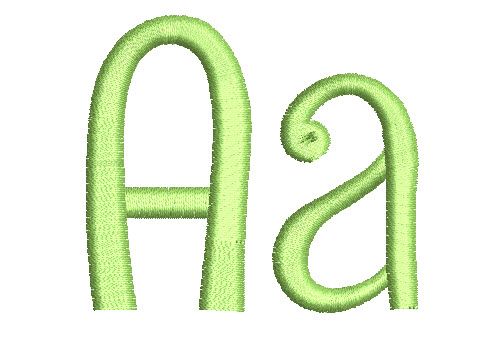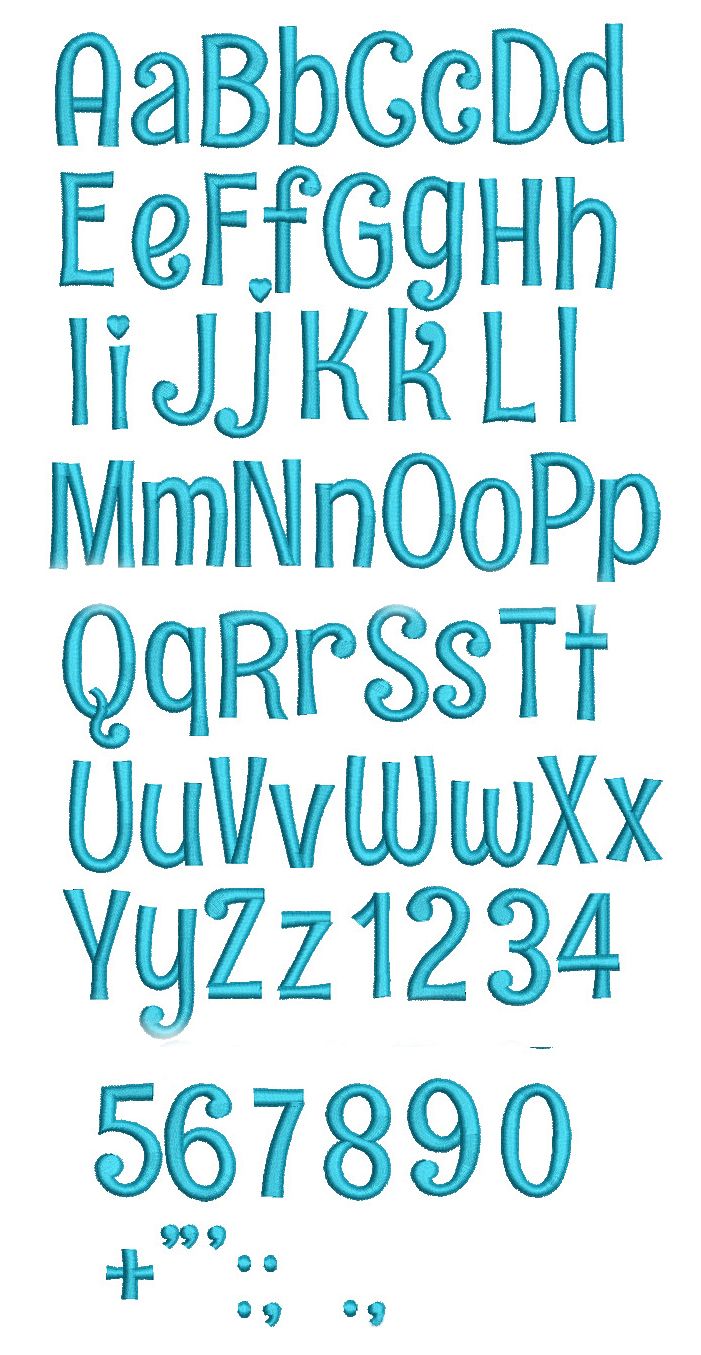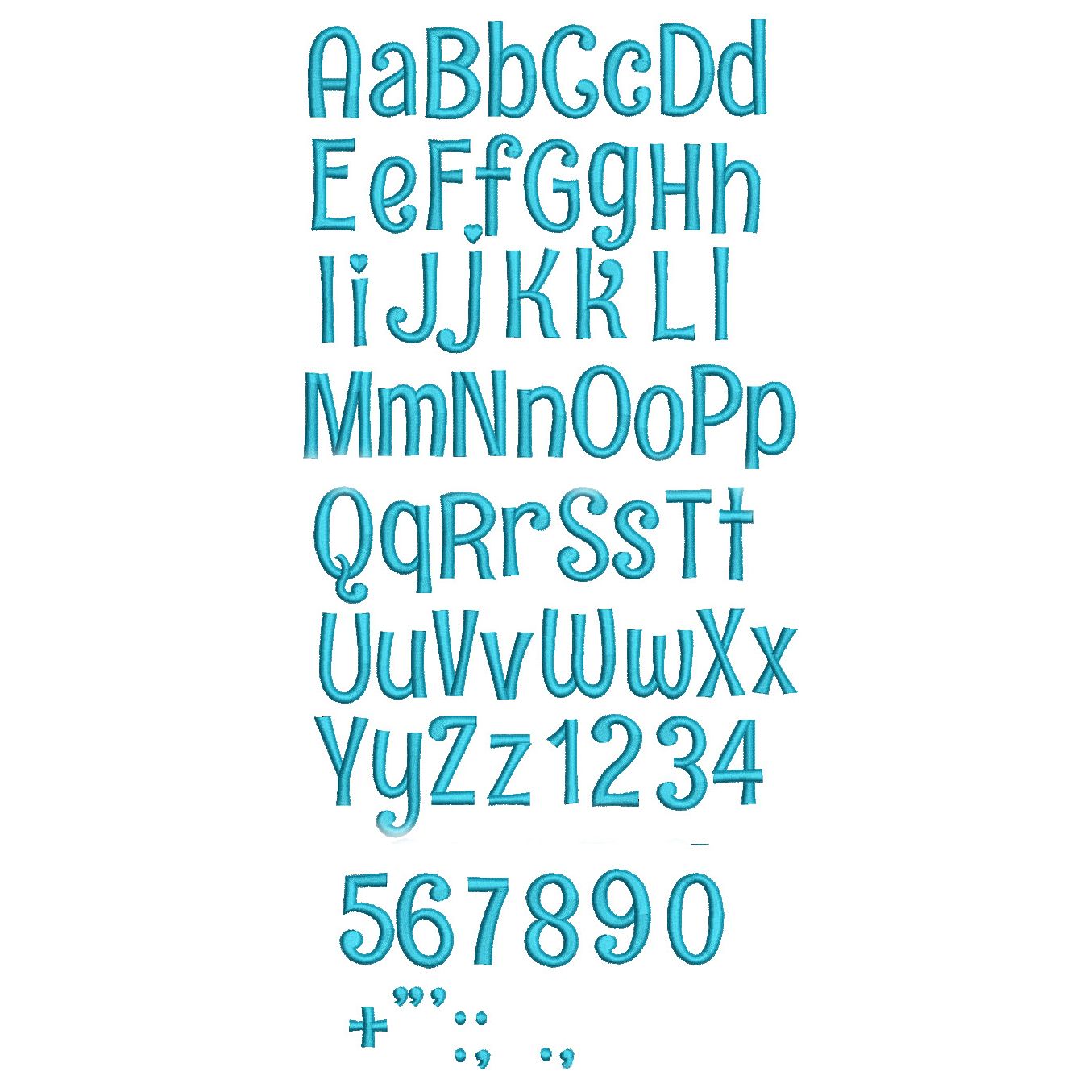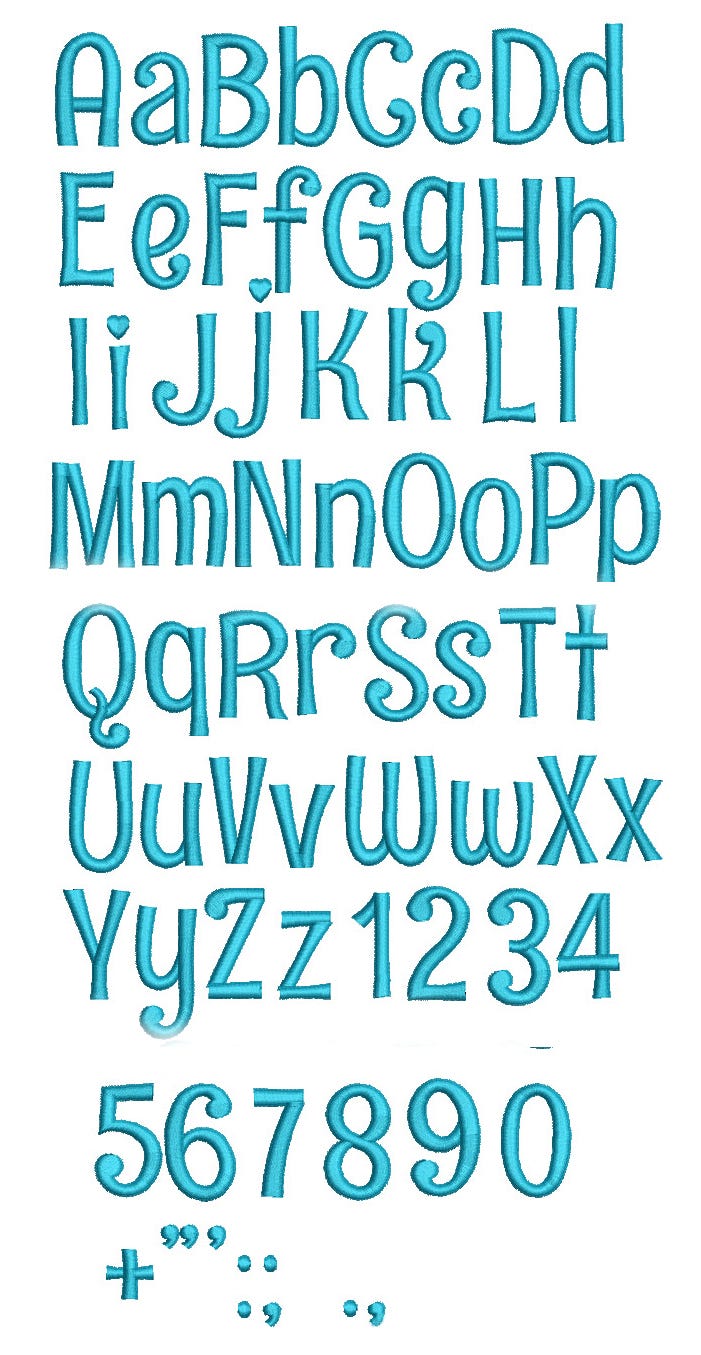
A cute and simple font with a bit of whimsy! All of our fonts are 100% manually digitized to bring you high quality stitch outs. Includes numbers and characters!